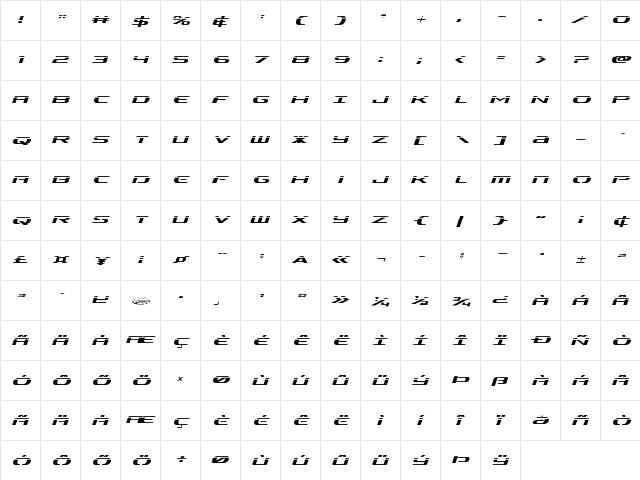
Alpha Men Laser Italic Italic
Design Context for Alpha Men Laser Italic Typeface
Alpha Men Laser Italic takes a measured approach to typography — its balanced proportions and neutral character make it a reliable workhorse for both digital and print work. The dynamic lean of this cut emphasises speed and emphasis in any layout.
Pro Tip: Try Alpha Men Laser Italic for annotation and caption copy alongside an upright companion — the contrast in angle creates a dynamic but ordered typographic system.